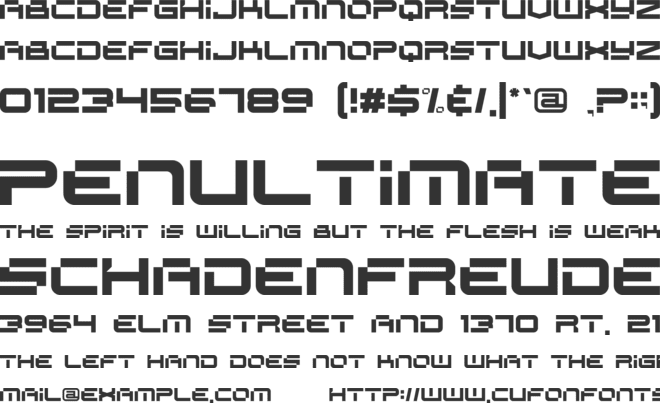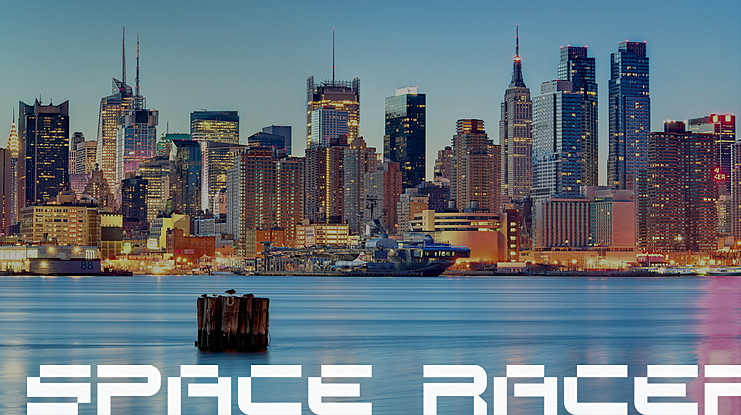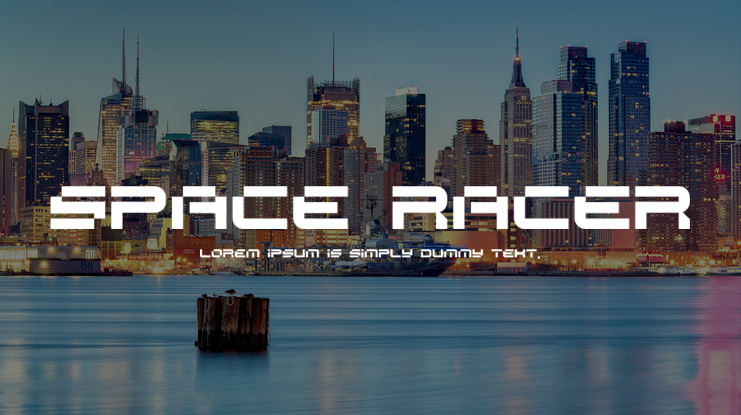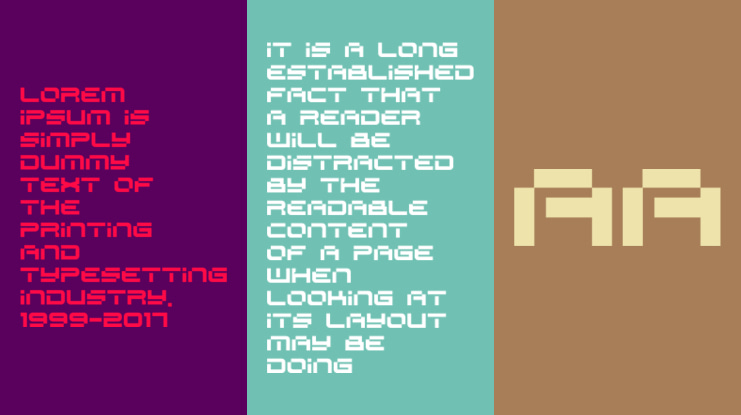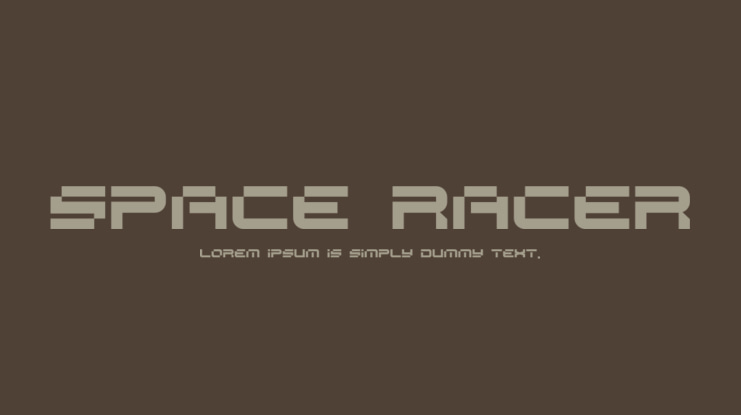
SPACE RACER Font
Space Racer is a vintage display typeface, They pair well together and look great on games with pixel or vintage style, pixel art, movie tittle, ebook, tshirt gaming etc
SPACE RACER font preview